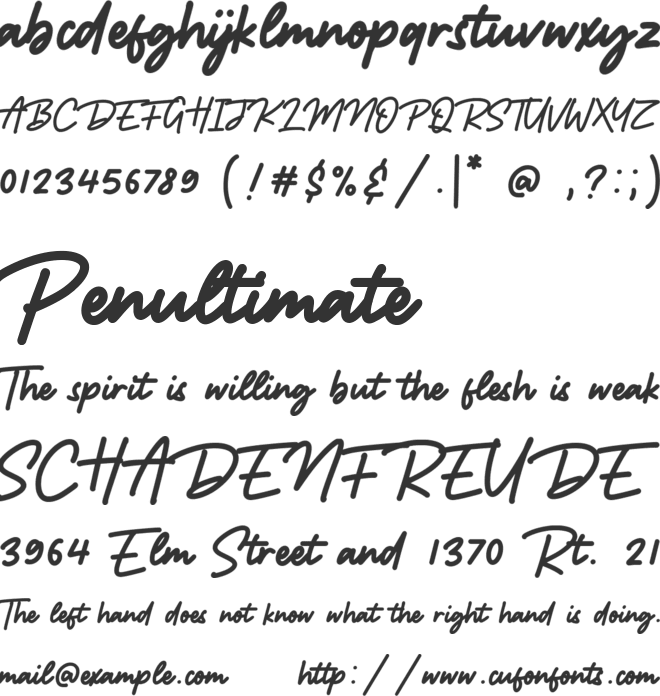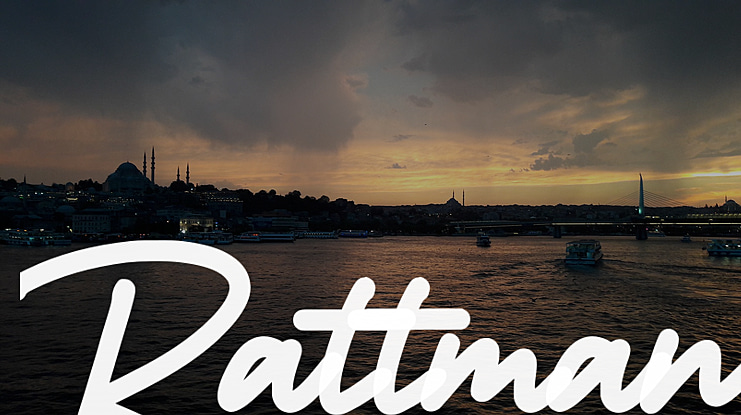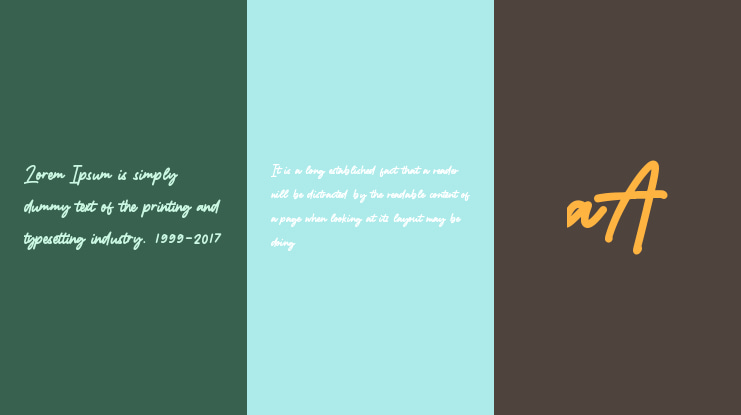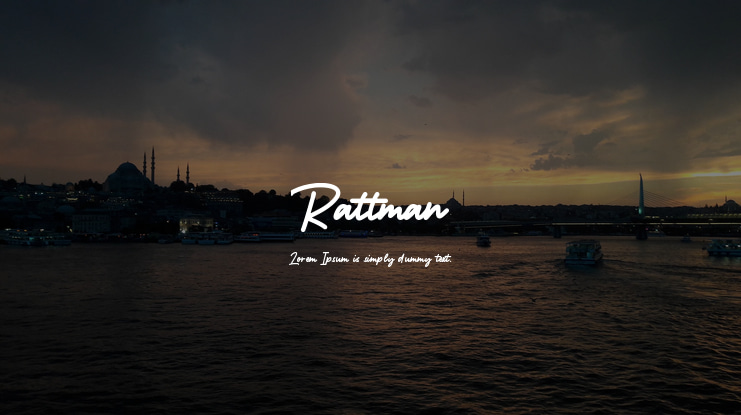
Rattman Font
Proudly Present, Rattman Font.
Rattman is a Cute Monoline Handwritten font.
Rattman is perfect for product packaging, branding project, megazine, social media, wedding, or just used to express words above the background.